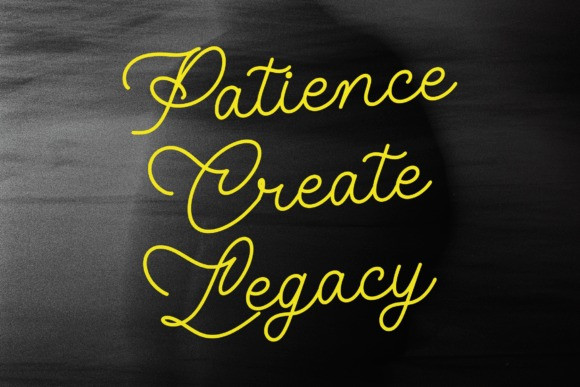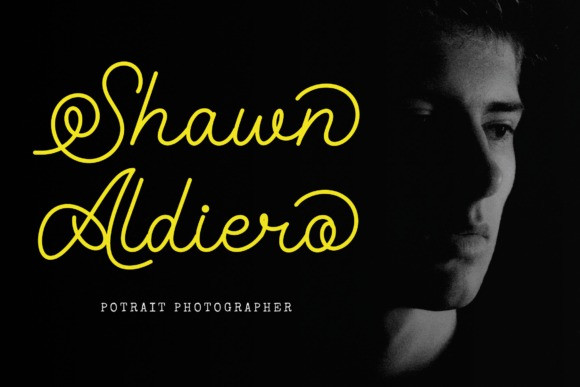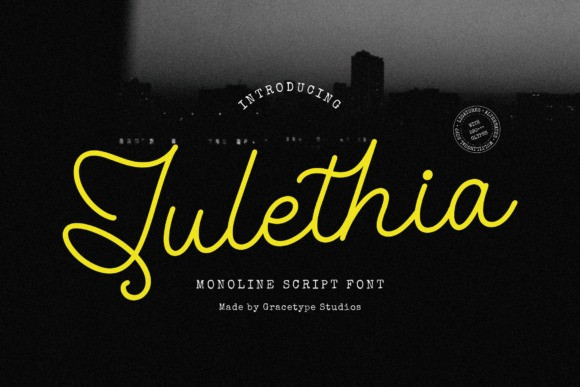
Julethia Script Font
Julethia Script Font a premium monoline script font. This typeface features a consistent stroke weight that flows with effortless, rhythmic grace, capturing the essence of modern handcrafted lettering. Its unique personality is defined by expansive, loopy flourishes and sophisticated connections that give every word a bespoke, high-end feel. Boasting an impressive library of over 290 glyphs—including artistic ligatures and alternates—Julethia is an extraordinary choice for boutique branding, personalized signature logos, luxury event stationery, and chic social media overlays. It delivers a sense of polished artisanal beauty and contemporary urban energy to your visual identity, ensuring your headlines carry a legendary and memorable presence.